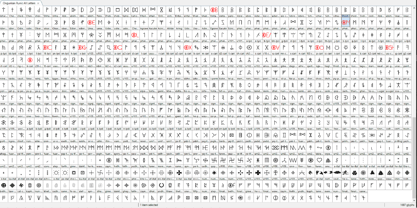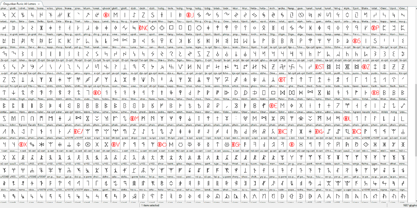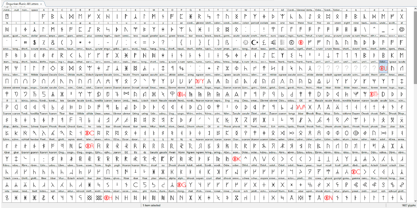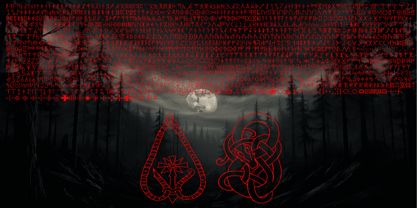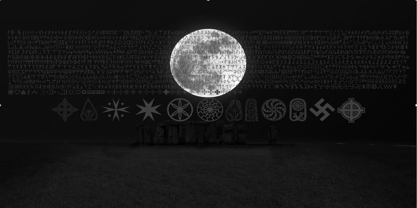
Ongunkan Rune All Letters
The Ongunkan Rune All Letters Font Family was designed by Osman Nuri ALKAN and published by Runic World Tamgacı. Ongunkan Rune All Letters contains 1 styles. More about this family
This runic font incorporates all the runic characters I could identify, resulting in a very large and sophisticated runic font. Runes are the letters in a set of related alphabets, known as runic rows, runic alphabets or futharks, native to the Germanic peoples. Runes were primarily used to represent a sound value but they were also used to represent the concepts after which they are named. Runology is the academic study of the runic alphabets, runic inscriptions, runestones, and their history. Runology forms a specialised branch of Germanic philology. The earliest secure runic inscriptions date from at latest AD 150, with a possible earlier inscription dating to AD 50 and Tacitus's possible description of rune use from around AD 98. The Hole Runestone dates from between BC 50 and AD 275. Runes were generally replaced by the Latin alphabet as the cultures that had used runes underwent Christianisation, by approximately AD 700 in central Europe and 1100 in northern Europe. However, the use of runes persisted for specialized purposes beyond this period. Up until the early 20th century, runes were still used in rural Sweden for decorative purposes in Dalarna and on runic calendars.
As my interest in rune writings grew, it became inevitable for me to make my own fonts. It was time to put all these years of hard work into action. This foundry, named Runic World Tamgacı, was prepared as a platform for the distribution of font studies developed on Old European Runic inscriptions, Old Asian Runic inscriptions, Old Hungarian Runic inscriptions, Runic inscriptions found in Africa and Arabian geography, and Italic inscriptions such as Etruscan and Iberian. These fonts, which have high aesthetic design and a full list of letters, will serve as a wide source especially for academic studies and amateur researchers, including derivative letters. It will also please enthusiasts interested in this field. The inventory of the foundry will be constantly updated and expanded with new additions to the fonts of these mysterious ancient inscriptions. These Runic studies were made from scratch by looking at the relevant sources.